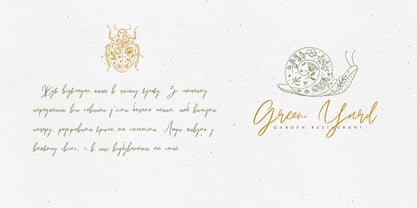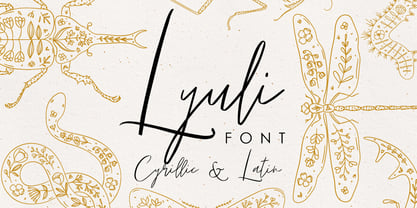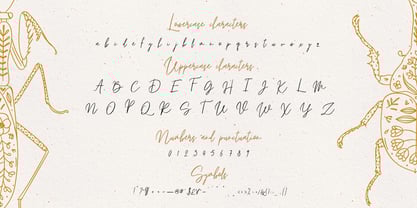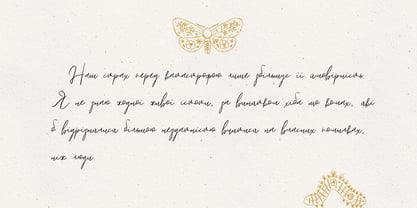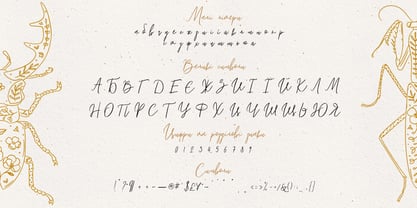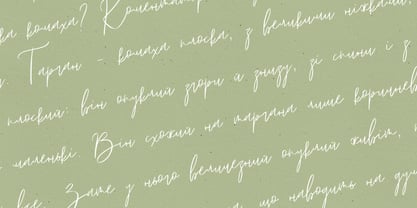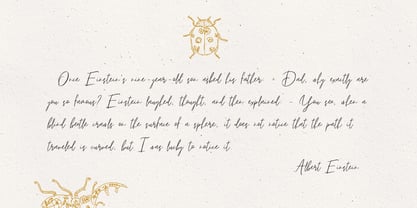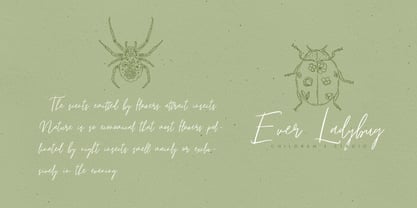
Lyuli
by Anna Kozlenko
The Lyuli Font Family was designed by Anna Kozlenko and published by Anna Kozlenko. Lyuli contains 1 styles.
Lyuli Script is a handwritten font with a calligraphy flair, ideal for creating handwritten-style logos, wedding stationery, photographer watermarks logos, modern websites, and more.
Designers: Anna Kozlenko
Publisher: Anna Kozlenko
Foundry: Anna Kozlenko
Design Owner: Anna Kozlenko